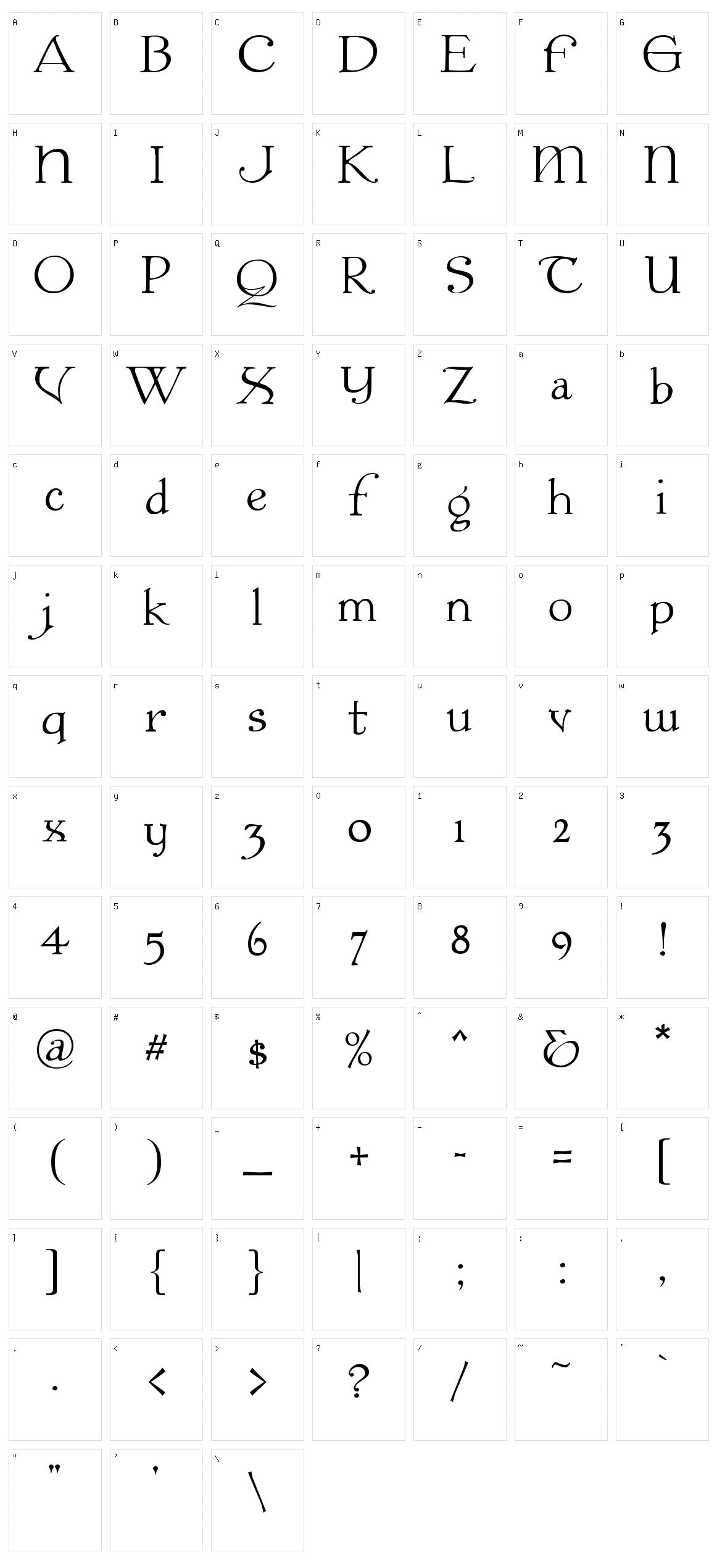
Colwell
Designed by: Apostrophic Labs
From an email from Fleisch, after I told her that I was thinking of making the font's showcasing design something to do with Victoria's Secret:
"My instant reaction to Victoria's Secret was to regress to second grade and think that Victoria's Secret probably involved Prince Albert in the can, which is probably not the kind of theme you're striving for. I was then beset by visions of Laura Ashley wallpaper and had to go lie down before I felt the urge to upholster a chair."
There's a Victoria's Secret pair of panties hanging on the wall in my bedroom. Long story about why it's hanging there. Maybe one day if you buy me enough drinks to pull it out of me. Another time? Sure thing. I think I wanted to make a point somewhere in here, but I forgot what it was. Something to do with longing and belonging. Maybe another time? Sure thing.
This font is based on hand lettering by Elizabeth Colwell from 1916, when war was raging and silent movies ruled. I have no idea who Elizabeth Colwell was. I never bothered to check. But her name figures in a few old lettering books, without any history to back it up. She could have been Victoria's mother for all I know. If you have any information about her and feel generous enough to share it, drop me a note please.
Anyhow. Enjoy the font and its alternates. And a tip of the hat to Fleisch for pulling this font out of her collection of old type books.